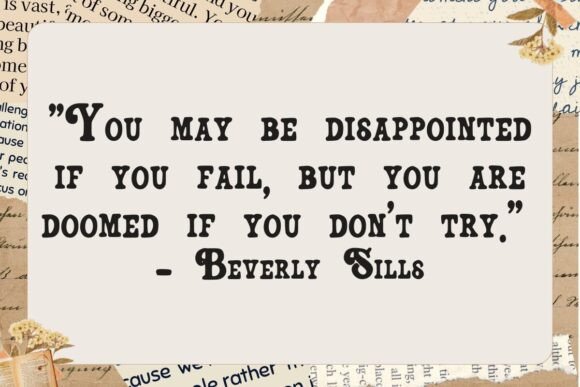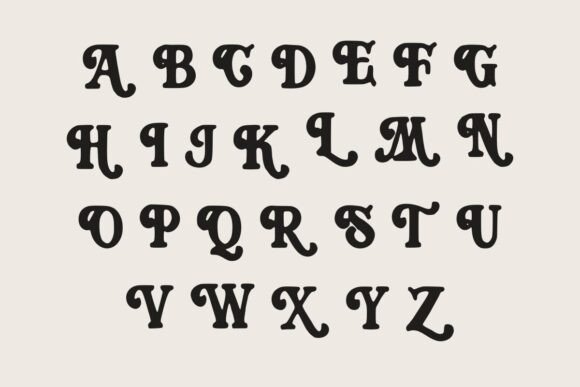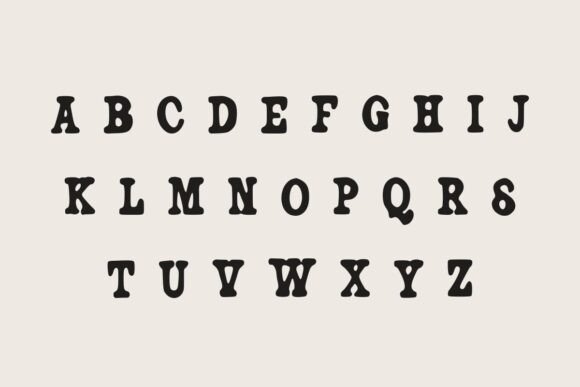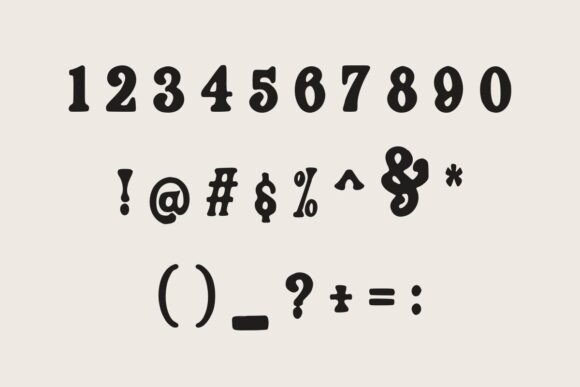
Introduction to Rustic Scroll Font
Have you ever stared at a blank design canvas, trying to conjure up the perfect font to bring your creative project to life? I know I have. It’s that moment when you’re searching for the perfect design resource to give your project a unique touch, and nothing seems to quite fit. That’s when I stumbled upon the Rustic Scroll Font – a vintage-inspired display font that stole my heart with its charming handcrafted feel.
With its bold, ornate serifs and slightly distressed texture, the Rustic Scroll Font exudes old-world elegance with a touch of whimsy. Whether you’re designing for a wedding invitation, retro branding, or a medieval-themed event, this font is sure to add character and warmth to your typography. Plus, with its transparent background, it’s the perfect addition to any high-quality design.
Key Features of Rustic Scroll Font
- Rustic, vintage-inspired design perfect for creative projects
- High-quality font with a transparent background for easy layering
- Unique characteristics: hand-drawn, distressed textures and subtle imperfections
- Perfect design resource for adding a touch of nostalgia and elegance to any project
Honest Review: Rustic Scroll Font
I recently stumbled upon the Rustic Scroll Font, and I must say it’s been a game-changer for my creative projects. As a designer, I’m always on the lookout for unique and high-quality design resources, and this font definitely delivers.
One of the standout features of the Rustic Scroll Font is its versatility. It’s perfect for projects that require a touch of elegance and sophistication, such as wedding invitations, luxury brochures, and high-end marketing materials. The font’s ability to be customized with a transparent background is a huge plus, allowing me to layer it with other design elements and create visually stunning effects.
Here are some of the things I love about the Rustic Scroll Font: ✨
- Transparency option for seamless layering with other design elements
- Perfect for luxury and high-end design projects
However, I do have a few minor quibbles: ⚠️
- Some users may find the font a bit too ornate for certain projects
- Not suitable for projects that require a more modern or minimalist aesthetic
Overall, I’m thoroughly impressed with the Rustic Scroll Font. It’s a valuable addition to any designer’s toolkit, and I highly recommend it for any creative project that requires a touch of elegance and sophistication.
Rustic Scroll Font
The Rustic Scroll Font is commonly used in wedding invitations, event planning materials, and other creative projects where a touch of elegance is desired.